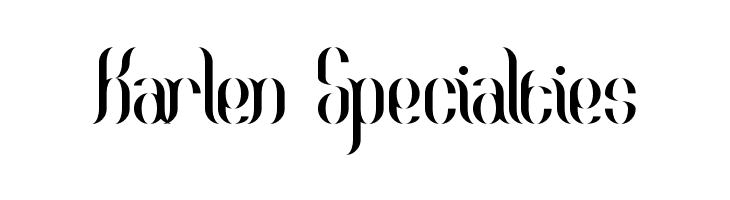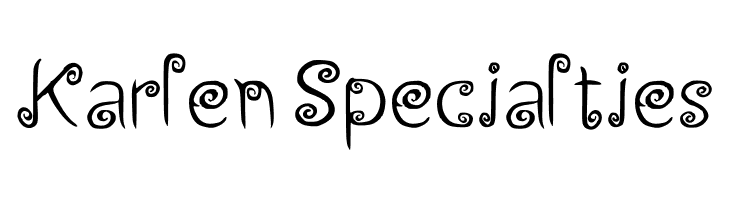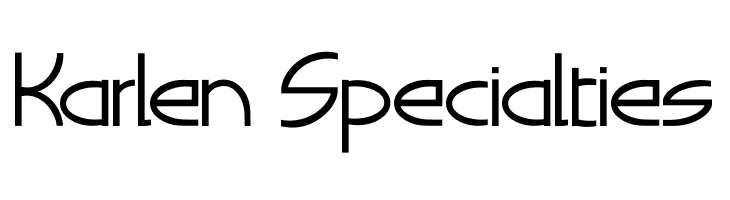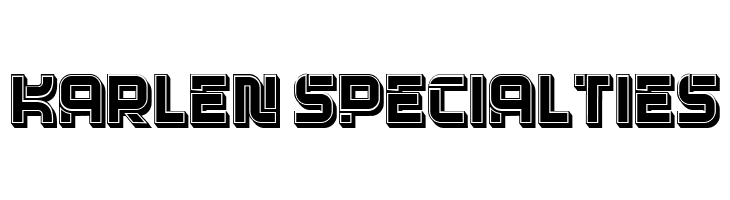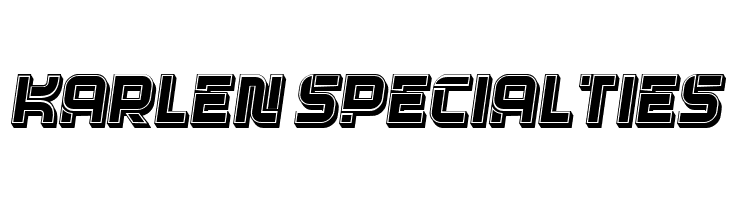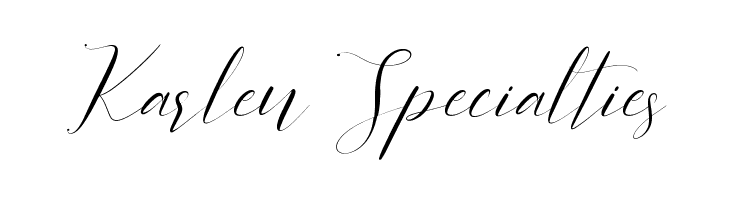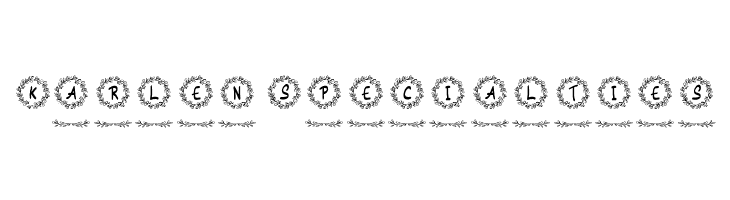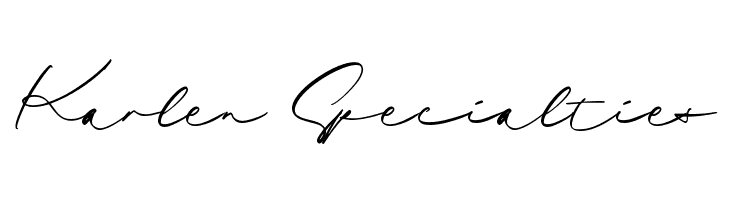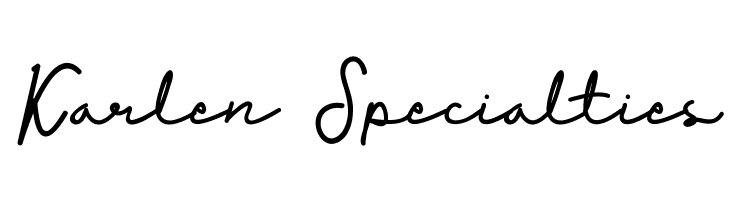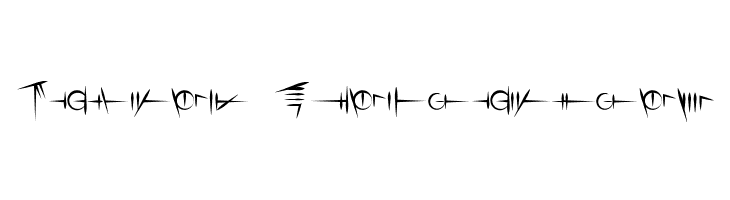
• Sienthas
A graceful script font with fluid, cursive strokes and elegant curves.
• Sientta Script
An elegant script font with flowing, cursive lines and high contrast strokes.
• Siera'sFont1
• Siera'sFont3
• Sieralova
An elegant, flowing script font with a handwritten style.
• Sieroty
A fluid, elegant handwritten font with smooth, connected letterforms.
• Sieroty Swash
An elegant, swash-filled font with intricate, flowing designs.
• Sierra Italic
A bold, geometric font with a three-dimensional outline effect.
• Sierra Madre
A bold, geometric font with art deco influences, featuring sharp, angular letterforms.
• Sierra Madre Bold
A bold, geometric font with art deco influences, ideal for striking designs.
• Sierra Madre Bold Italic
A bold, italicized font with a dynamic and energetic style.
• Sierra Madre Italic
A bold, italic font with a modern, dynamic style and clean lines.
• Sierra Nevada Road
• Sierra Nevada Road SC
• Sierra Regular
A bold, geometric font with a futuristic, three-dimensional look.
• SierraMoon-Regular
A playful, informal handwritten font with smooth, flowing curves.
• Siesta
A dynamic and elegant script font with fluid, decorative letterforms.
• Siestha Monogram Regular
An elegant monogram font with letters encased in ornate floral wreaths.
• SIGAHARU
A modern, geometric font with clean lines and rounded edges.
• Sigali Script
A futuristic and edgy font with sharp, angular lines and geometric shapes.
• Sigana
A bold, condensed font with uniform stroke thickness and strong vertical emphasis.
• Siganature
A fluid, cursive font with a natural handwritten style.
• Sigarette